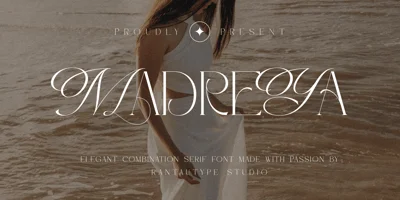
Madreya Font
Madreya Font is perfect for feminine and organic applications including beauty salon branding, botanical garden signage, women's lifestyle magazines, natural skincare packaging, wellness retreat materials, organic product labels, maternal health publications, and artisanal craft branding. This graceful typeface brings nurturing warmth and natural elegance to projects celebrating femininity, motherhood, and organic beauty in contemporary design environments.
What makes Madreya Font exciting is its beautiful expression of feminine strength and natural grace through carefully crafted letterforms. The font features flowing curves and organic shapes that echo the gentle power of nature and maternal wisdom. Its nurturing character design incorporates soft edges and harmonious proportions that create an immediate sense of comfort and authenticity while maintaining excellent readability for both intimate and commercial applications.
The Madreya Font family includes multiple weight variations and stylistic alternatives that preserve the feminine character while offering design versatility. From delicate light weights for gentle applications to confident medium variants for clear communication, each style maintains the signature nurturing aesthetic. The family also includes decorative flourishes and organic symbols that enhance the font's ability to communicate natural beauty and maternal strength.
Women-focused brands and wellness organizations consistently choose Madreya Font for projects requiring authentic feminine typography and organic appeal. Whether developing maternal health resources, creating natural beauty campaigns, or designing wellness center materials, this font delivers exceptional warmth and genuine character. Its unique combination of feminine grace and contemporary functionality makes it an invaluable resource for professionals seeking to create meaningful work that honors women's experiences and connects with audiences appreciating authentic femininity, natural wisdom, and nurturing strength.